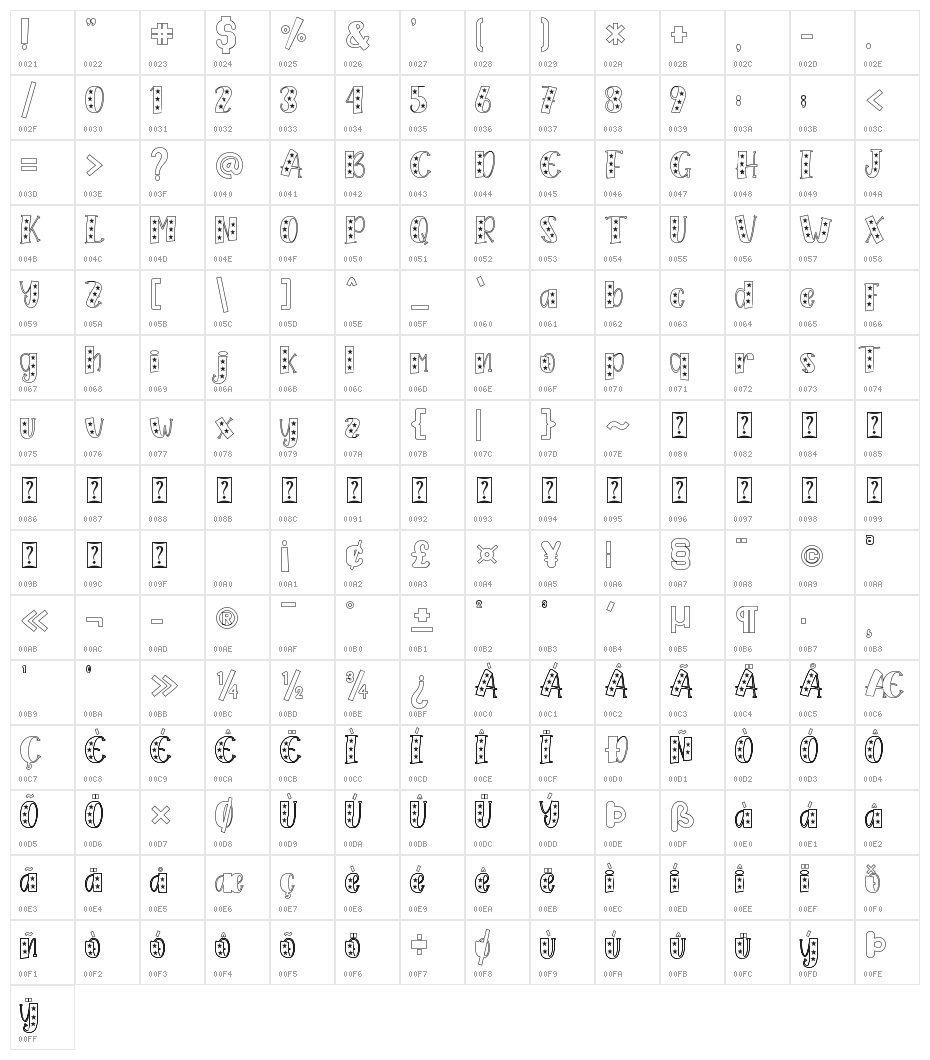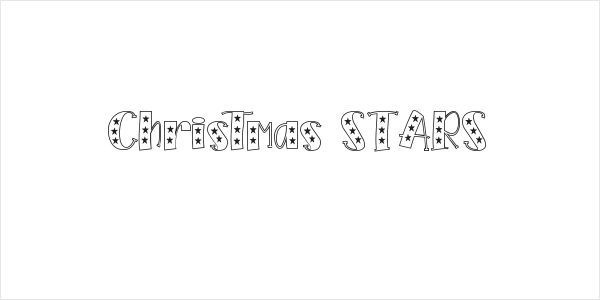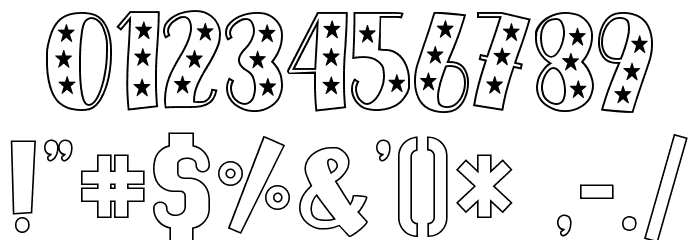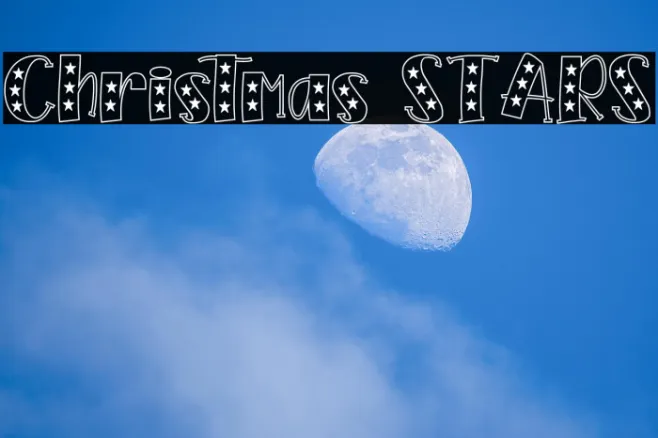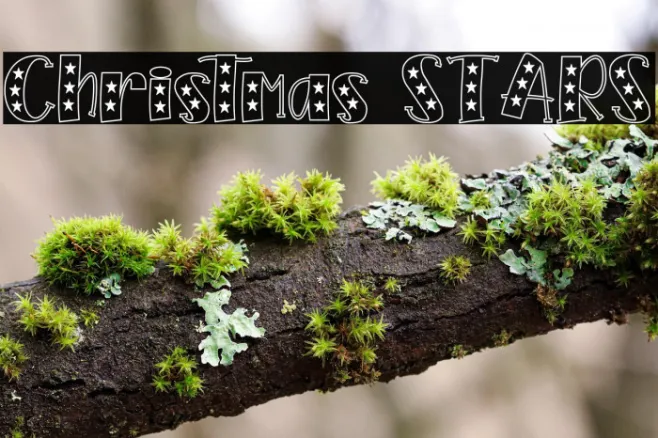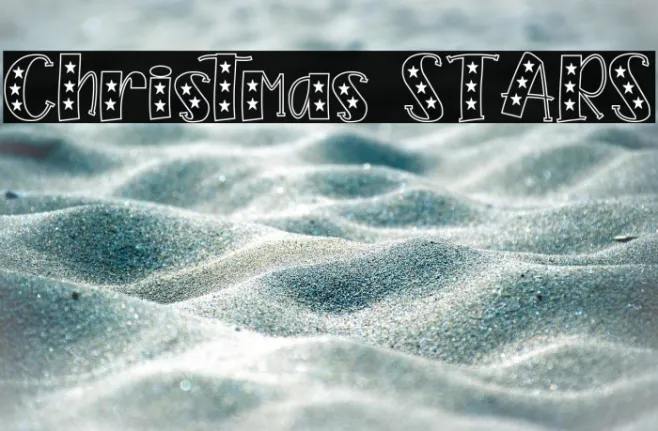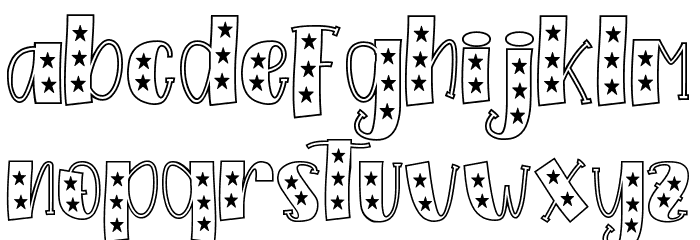
Christmas STARS Font
Christmas STARS Description
This whimsical and festive font features bold, playful letters filled with star patterns, creating a lively and cheerful appearance. The uppercase and lowercase letters are designed with a hand-drawn style, adding a touch of creativity and fun. The numbers and special characters maintain the same star-filled design, ensuring consistency throughout. The font's unique style makes it perfect for holiday-themed projects, adding a sense of joy and celebration. The overall design is eye-catching and ideal for capturing attention in decorative contexts.
| Use Case | Headlines, Logos, Decorative text |
| Proposed Projects | Ideal for holiday cards, festive banners, party invitations, and children's book covers. |